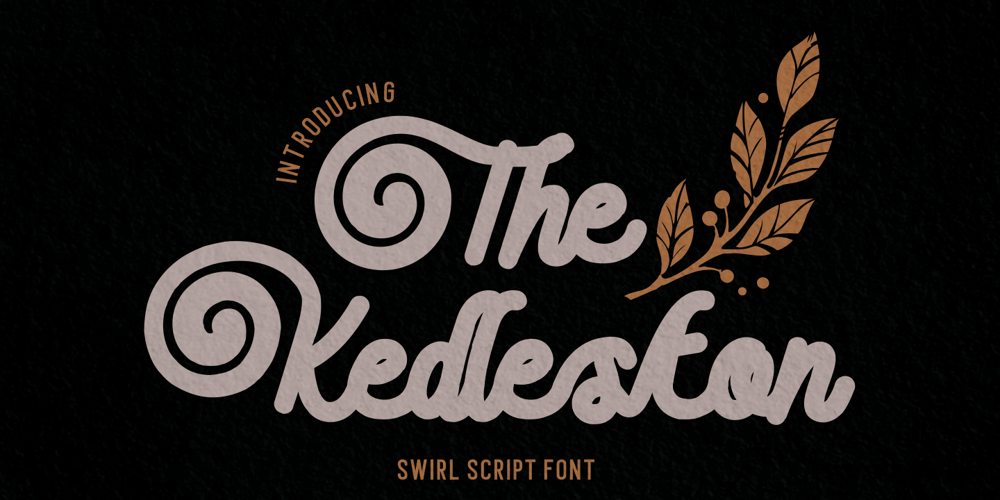
The Kedleston Font Family was designed by Putra Novembria Candra Kusuma and published by Putracetol. The Kedleston contains 1 styles and family package options. Introducing The Kedleston – Swirl Script Font, a monoline typeface that gracefully combines the elegance of script with unique swirling swashes. This font is a true testament to the beauty of simplicity and sophistication. With its alternative characters adorned with captivating swirls.